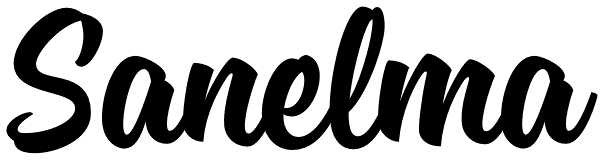
Sanelma
Sanelma is a brush script inspired by Hot Rod lettering and sign painting. Sanelma is a very versatile script: It includes two different styles of end swashes, swash caps, small caps, lots of alternate characters and underline option. All in all it...